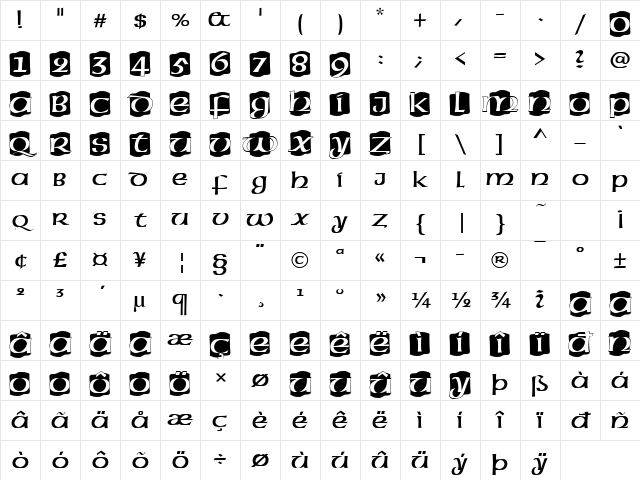
Americana Becker Uncial Ini Regular
Design Context for Americana Becker Uncial Ini
Americana Becker Uncial Ini is a composed and adaptable typeface that performs quietly and consistently across a wide range of design contexts.